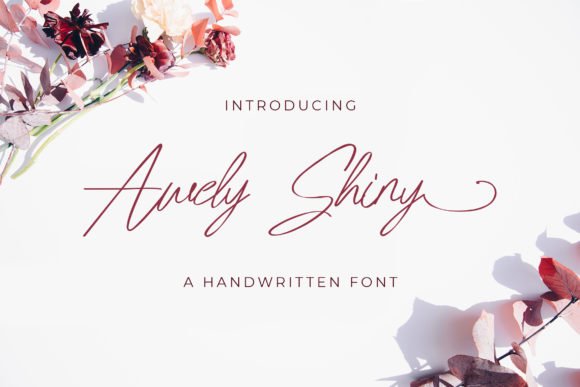
Introduction to Awely Shiny Font
Awely Shiny is a magical handwritten font carefully created with a touch of elegance.
It looks lovely on wedding invitations, thank you cards, quotes, greeting cards, logos, business cards and every other design which needs a handwritten touch This font is PUA encoded which means you can access all of the glyphs and swashes with ease.
Key Features of Awely Shiny Font